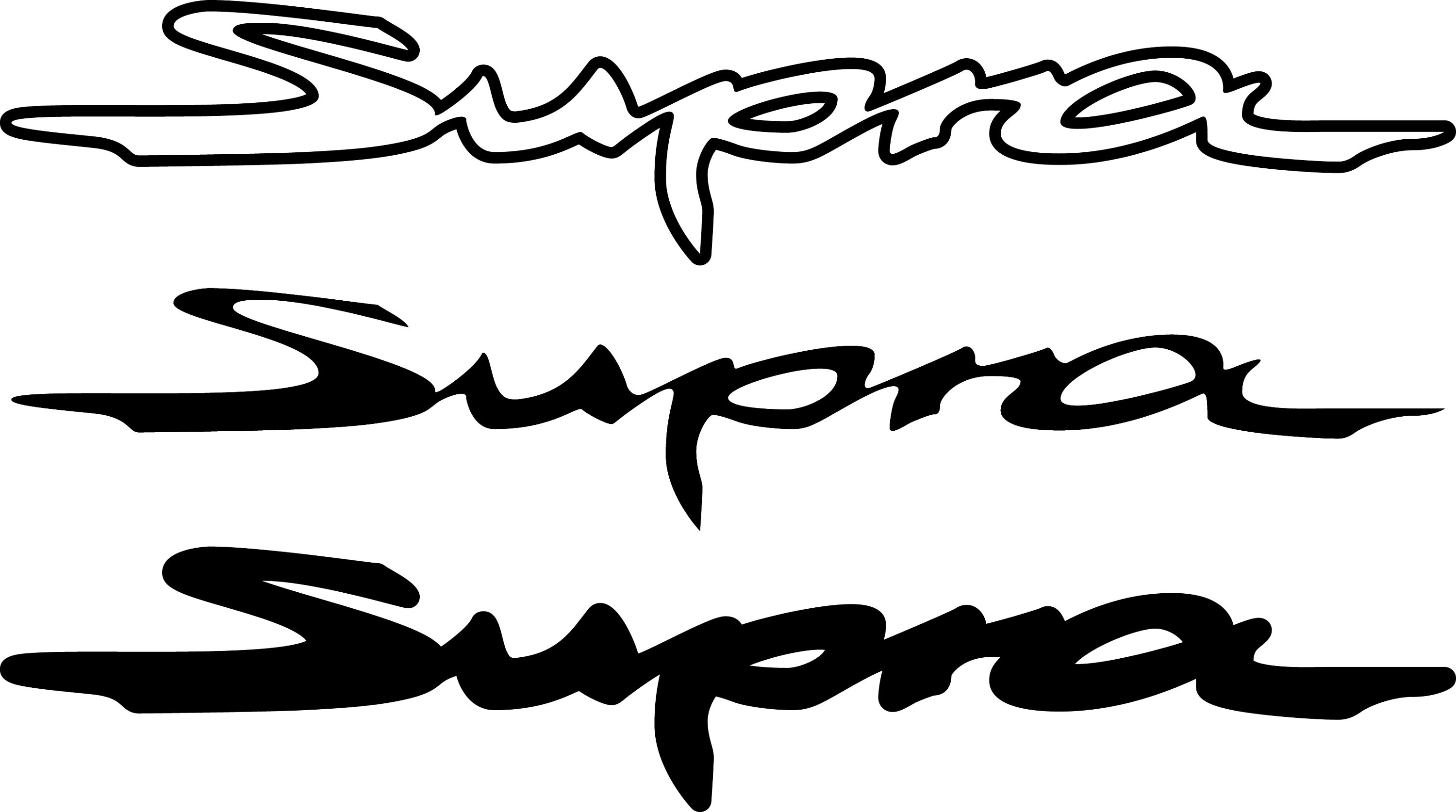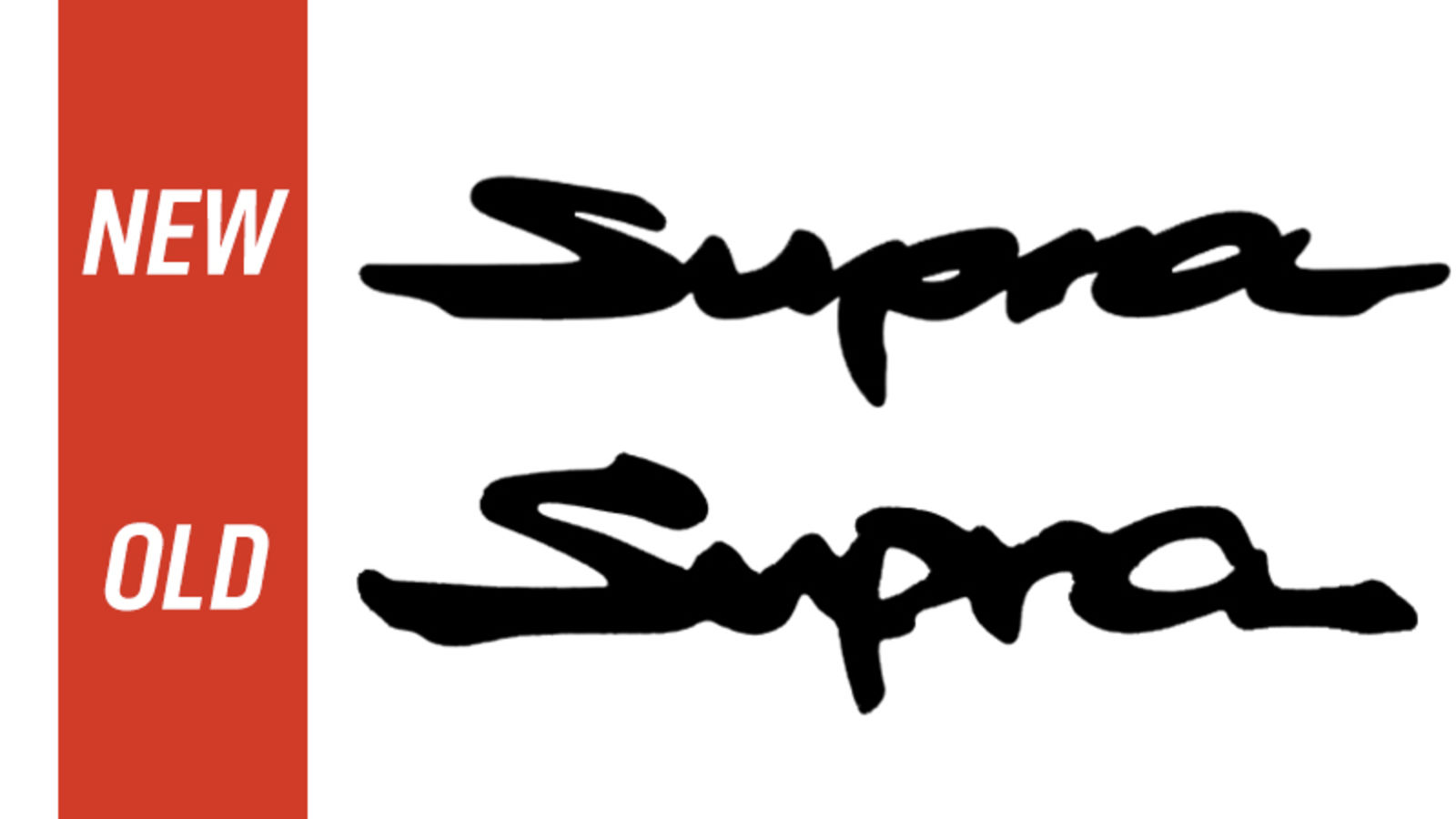
Toyota Supra Font
Toyota Supra Font - Finished font is now available here: A forum thread where users discuss the possibility of finding or creating a font based on the supra logo. Free toyota supra fonts (.ttf &.otf). General serif · sans serif · italic · letterbat · initials · small caps. A discussion thread on supramania forum where users ask and share information about the font style for the toyota supra mk3. Customize your text with different styles, colors, gradients, shadows, and. Create and share cool text images with the toyota supra font generator. Size poster · display · headline · body text ·. This font has been used for the toyota supra turbo, the mr2, a few other cars and trucks, even american trucks meaning toyota. See the replies, links and.
Free toyota supra fonts (.ttf &.otf). Finished font is now available here: General serif · sans serif · italic · letterbat · initials · small caps. Customize your text with different styles, colors, gradients, shadows, and. Toyota supra available in windows and mac os x version. Create and share cool text images with the toyota supra font generator. This font has been used for the toyota supra turbo, the mr2, a few other cars and trucks, even american trucks meaning toyota. See the replies, links and. Size poster · display · headline · body text ·. A discussion thread on supramania forum where users ask and share information about the font style for the toyota supra mk3.
Free toyota supra fonts (.ttf &.otf). Create and share cool text images with the toyota supra font generator. This font has been used for the toyota supra turbo, the mr2, a few other cars and trucks, even american trucks meaning toyota. A forum thread where users discuss the possibility of finding or creating a font based on the supra logo. A discussion thread on supramania forum where users ask and share information about the font style for the toyota supra mk3. See the replies, links and. Customize your text with different styles, colors, gradients, shadows, and. Toyota supra available in windows and mac os x version. Finished font is now available here: General serif · sans serif · italic · letterbat · initials · small caps.
Size poster · display · headline · body text ·. Create and share cool text images with the toyota supra font generator. Finished font is now available here: This font has been used for the toyota supra turbo, the mr2, a few other cars and trucks, even american trucks meaning toyota. Toyota supra available in windows and mac os x.
Toyota Supra Font
See the replies, links and. Finished font is now available here: Create and share cool text images with the toyota supra font generator. A forum thread where users discuss the possibility of finding or creating a font based on the supra logo. This font has been used for the toyota supra turbo, the mr2, a few other cars and trucks,.
A discussion thread on supramania forum where users ask and share information about the font style for the toyota supra mk3. Create and share cool text images with the toyota supra font generator. This font has been used for the toyota supra turbo, the mr2, a few other cars and trucks, even american trucks meaning toyota. General serif · sans.
Create and share cool text images with the toyota supra font generator. Toyota supra available in windows and mac os x version. General serif · sans serif · italic · letterbat · initials · small caps. This font has been used for the toyota supra turbo, the mr2, a few other cars and trucks, even american trucks meaning toyota. Free.
Toyota supra available in windows and mac os x version. Create and share cool text images with the toyota supra font generator. A discussion thread on supramania forum where users ask and share information about the font style for the toyota supra mk3. This font has been used for the toyota supra turbo, the mr2, a few other cars and.
Customize your text with different styles, colors, gradients, shadows, and. Free toyota supra fonts (.ttf &.otf). Toyota supra available in windows and mac os x version. A discussion thread on supramania forum where users ask and share information about the font style for the toyota supra mk3. A forum thread where users discuss the possibility of finding or creating a.
A discussion thread on supramania forum where users ask and share information about the font style for the toyota supra mk3. Finished font is now available here: General serif · sans serif · italic · letterbat · initials · small caps. A forum thread where users discuss the possibility of finding or creating a font based on the supra logo..
Size poster · display · headline · body text ·. A discussion thread on supramania forum where users ask and share information about the font style for the toyota supra mk3. Create and share cool text images with the toyota supra font generator. A forum thread where users discuss the possibility of finding or creating a font based on the.
See the replies, links and. General serif · sans serif · italic · letterbat · initials · small caps. A discussion thread on supramania forum where users ask and share information about the font style for the toyota supra mk3. Size poster · display · headline · body text ·. Toyota supra available in windows and mac os x version.
A Discussion Thread On Supramania Forum Where Users Ask And Share Information About The Font Style For The Toyota Supra Mk3.
A forum thread where users discuss the possibility of finding or creating a font based on the supra logo. See the replies, links and. Customize your text with different styles, colors, gradients, shadows, and. Finished font is now available here: